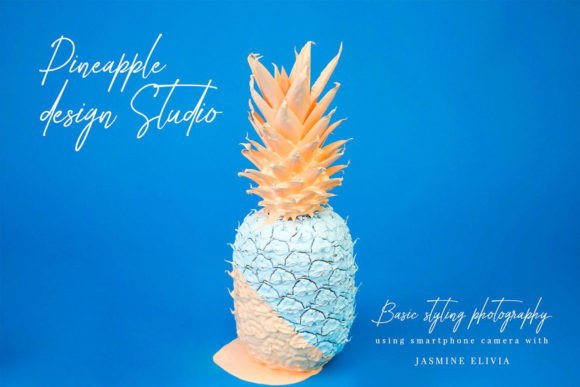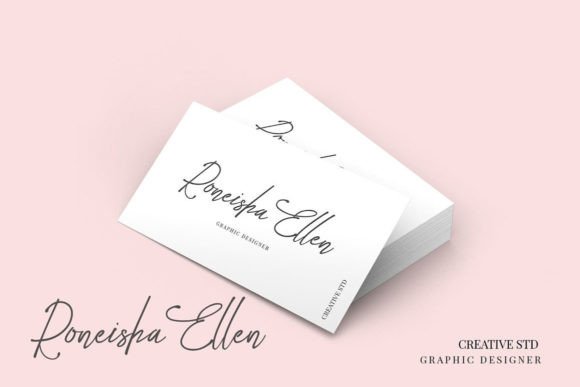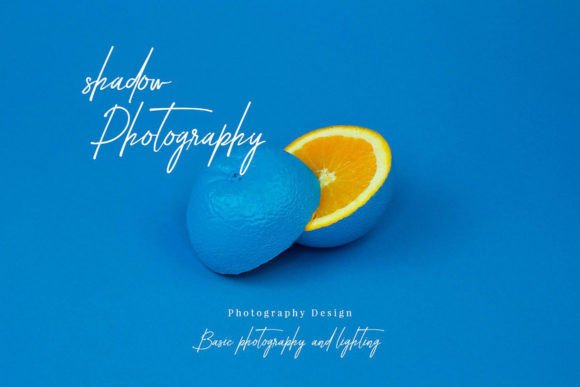
Diandra: A Modern Script Font with a Touch of Elegance
Diandra is a stunning script font that exudes elegance and sophistication. Its smooth, sweeping curves and imaginative style make it perfect for adding a unique and creative flair to any design. Whether you’re working on a branding project, a wedding invitation, or a social media graphic, Diandra is sure to make a statement and grab attention.
- ✨ Elegant and sophisticated feel
- ✅ Smooth, sweeping curves that add a touch of luxury to any design
- 💫 Imaginative and unique style that’s sure to stand out
- 🎨 Perfect for making a statement and grabbing attention
While Diandra is an amazing font, there are a few things to keep in mind. For example, ⚠️ some of the more intricate glyphs can be a bit finicky to work with, especially in certain design programs. Additionally, 🤔 the font can be a bit overused if not paired carefully with other design elements.
The Story Behind Diandra
Diandra was designed by a team of creatives who wanted to create a font that would inspire designers to think outside the box. With its unique blend of elegance and whimsy, Diandra is the perfect reflection of the designer’s playful and artistic personality. Whether or not this story is entirely true, Diandra’s beauty and versatility are undeniable.
Q: What type of projects is Diandra best suited for?
A: Diandra is perfect for a wide range of projects, from branding and advertising to wedding invitations and social media graphics.
Q: Is Diandra easy to read?
A: While Diandra is a script font, it’s surprisingly easy to read, even at smaller sizes. However, it’s always a good idea to test the font in your specific design to ensure it works well for your needs.
Q: Can I use Diandra with other fonts?
A: Absolutely! Diandra pairs beautifully with a wide range of fonts, from sans serifs to serif fonts. Experiment with different combinations to find the perfect fit for your design.